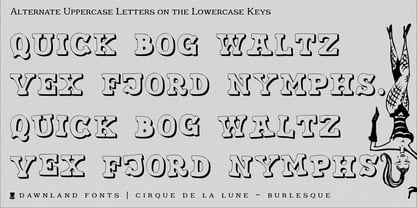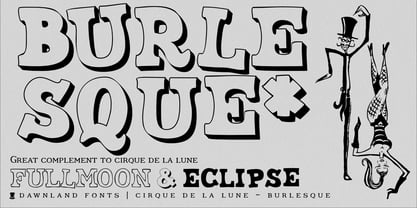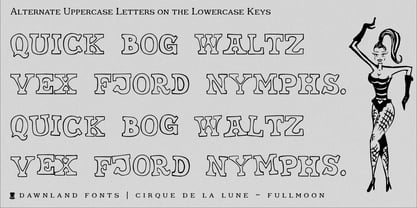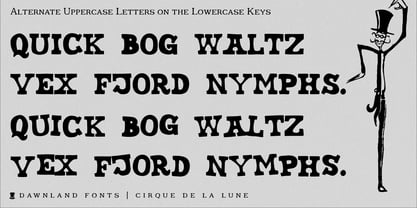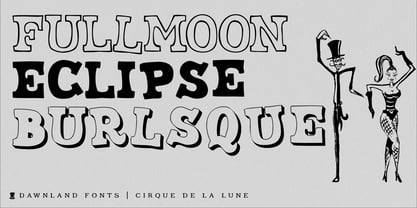
Cirque de la Lune
by Dawnland
The Cirque de la Lune Font Family was designed by Daniel Viberg and published by Dawnland. Cirque de la Lune contains 1 styles. More about this family
Cirque de la Lune Burlesque – an uppercase only poster/display/headline font, a perfect complement to the two variants Cirque de ls Lune Eclipse (regular) & Fullmoon (outline). Alternate, nudged or slightly rotated uppercase letters are placed on the lower case keys! Like most Dawnland fonts, it's been hand drawn on paper before scanning and making it into a font for you to enjoy!
Designers: Daniel Viberg